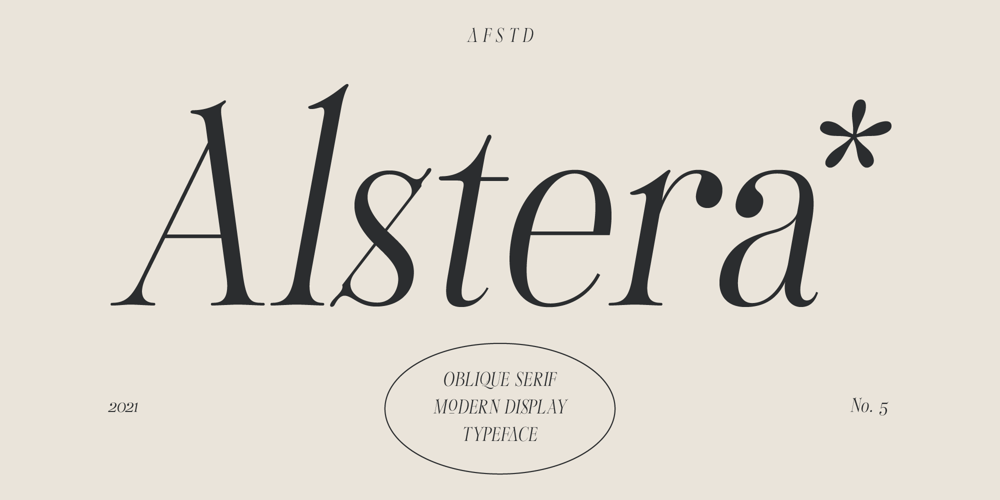
Alstera Font Family was designed by Adam Fathoni Haris and published by Adam Fathony. Alstera contains 1 styles and family package options. Alstera is an Oblique Serif Modern Display Type. Inspired by a luxurious & elegant brand that use minimalist design language. Alstera created in a simplicity, a minimalist, luxury and also looks elegant. Designed for a Display fonts that perfectly fits for Headlines, Logo, Branding, Packaging, T-shirt, or any design with a stand out or big typography.Alstera Comes with an option for alternate characters Uppercase and Lowercase. It’s great when use for Title Case or Sentence Case. Ligatures are also available on the capital combination letters. Language Support : Afrikaans, Albanian, Asu, Basque, Bemba, Bena, Catalan, Chiga, Cornish, Danish, Dutch, English, Estonian, Faroese, Filipino, Finnish, French, Friulian, Galician, Ganda, German, Greek, Gusii, Icelandic, Indonesian, Irish, Italian, Jola-Fonyi, Kabuverdianu, Kalenjin, Kinyarwanda, Low German, Luo, Luxembourgish, Luyia, Machame, Makhuwa-Meetto, Makonde, Malagasy, Malay, Manx, Morisyen, North Ndebele, Norwegian Bokmål, Norwegian Nynorsk, Nyankole, Oromo, Portuguese, Romansh, Rombo, Rundi, Rwa, Samburu, Sango, Sangu, Scottish Gaelic, Sena, Shambala, Shona, Soga, Somali, Spanish, Swahili, Swedish, Swiss German, Taita, Teso, Vunjo, Welsh, Western Frisian, Wolof, ZuluThank You !